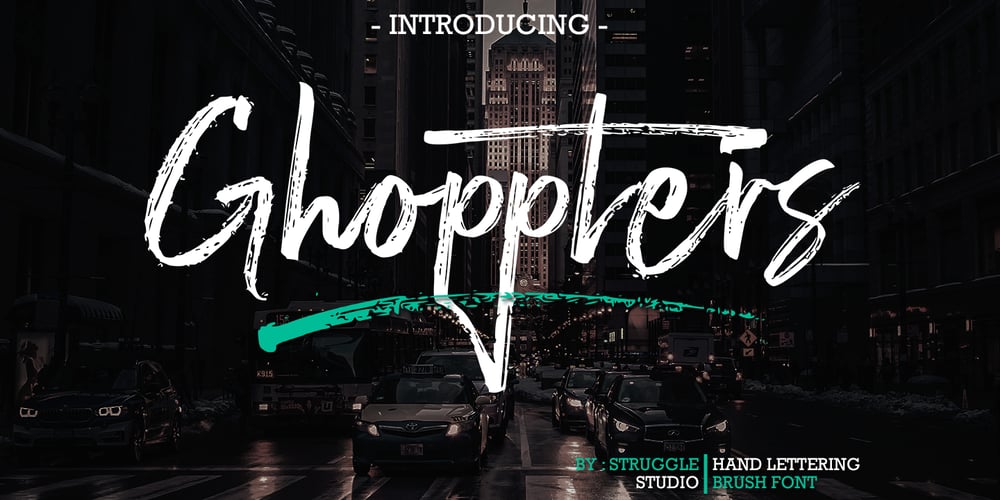
Ghoppters Font Family was designed by Andri Kurniawan and published by Struggle Studio. Ghoppters contains 2 styles and family package options. Ghoppers is a new modern brush font with an irregular baseline. a contemporary approach to design, handmade natural, suitable for use in title design such as clothing, invitations, book titles, stationery designs, quotes, branding, logos, greeting cards, T-shirts, packaging designs, posters, and more.Complete with uppercase and lowercase letters, as well as multi-language support, numbers, punctuation. It also includes some ligatures and swash characters.